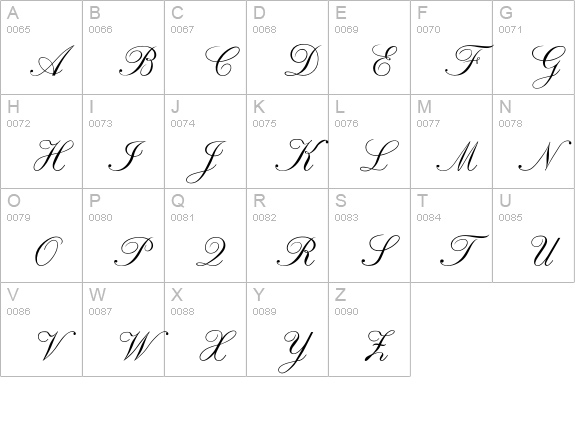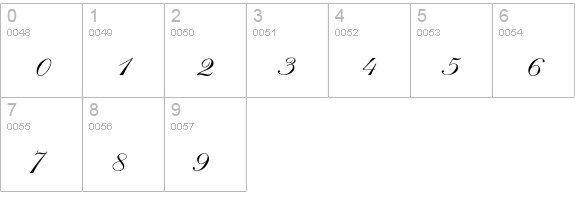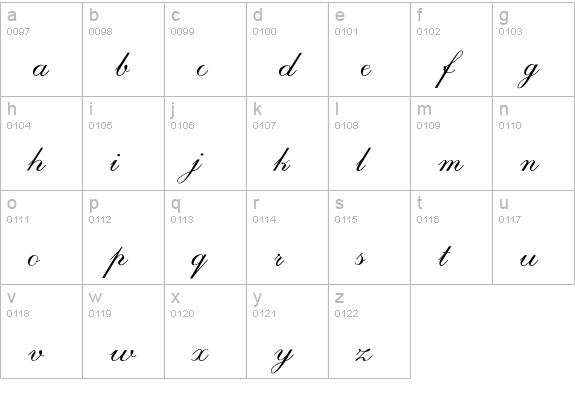
Regency Font Details
Introducing Regency font, a timeless and elegant typeface that exudes sophistication and refined grace. This exquisite font captures the essence of the Regency era, with its delicate and flowing letterforms that harken back to a bygone era of grandeur and style. Regency font is meticulously crafted, with each letter meticulously designed to reflect the intricate details and ornate beauty of the Regency period. Its graceful curves and intricate flourishes make it perfect for adding a touch of elegance to any project. But what sets Regency font apart is not just its stunning design, but also its accessibility. This remarkable font is available for free download at FontsMarket.com, making it easily accessible to all who seek to add a touch of classic charm to their designs. Whether you're creating invitations for a formal event, designing a logo for a luxury brand, or simply looking to elevate your typography game, Regency font is the perfect choice. Its timeless appeal and versatile nature make it suitable for a wide range of design projects, from wedding stationery to book covers and everything in between. With Regency font, you can effortlessly bring a touch of regal elegance to your designs. So why wait? Visit FontsMarket.com today and download this remarkable font for free, and let the timeless beauty of Regency font elevate your creative visions to new heights.